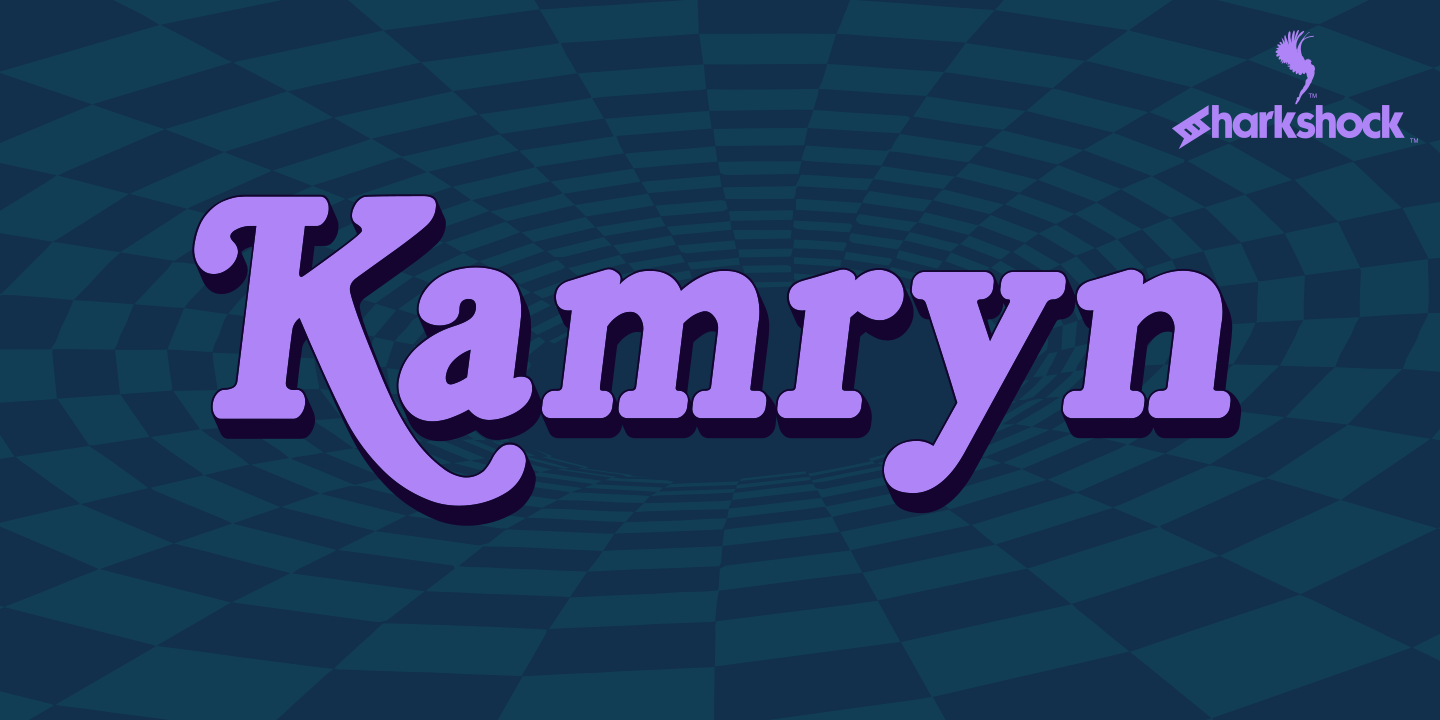
OTF/TTF: Kamryn (Regular, Italic, 3D, 3D Italic) Sharkshock 2021. All rights reserved Designed by Dennis Ludlow 12/16/2021 dennis@sharkshock.net Kamryn is an updated overhaul of an earlier project. This version retains a distinct retro look with swashes and rounded serifs. This gives it a wholesome feel that will work well in children�s books, 80�s era apparel, or scrapbooking. European accents and extended punctuation were added along with improved kerning and alternates. Overlap may occur in certain uppercase/lowercase combinations. The 3D versions are equipped with several ligatures that correct this. The demo contains basic Latin and limited punctuation. The full versions can be purchased for $35 via PayPal or by acquiring a commercial license. Do note that this $35 is for personal use only. Email us or visit www.sharkshock.net/license for more information on licensing. Unauthorized usage of our intellectual property is strictly prohibited and may result in legal action. Take a bite out of boring design! Tags: publications, basic, book, kids, style, European, 80s, retro, children, warm, serif, accents, European, diacritics, logo, Sharkshock, lettering, old fashioned, titling, |